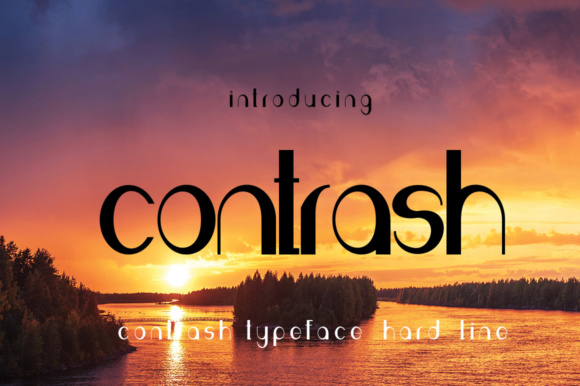
Embark on a typographic journey to the retro era with Contrash, a captivating sans serif font family designed by the talented jehansyah251. This font collection embodies the essence of nostalgia, transporting you back to the golden age of design. With its distinctive letterforms and playful character, Contrash adds an irresistible touch of vintage charm to your creative projects.
Contrash's meticulously crafted glyphs exude a timeless appeal, reminiscent of classic signage, posters, and magazine layouts. Its bold strokes and sharp angles command attention, while its subtle curves and playful details inject a touch of whimsy. Whether you're a seasoned designer or just starting your creative journey, Contrash will effortlessly elevate your work to new heights.
Dive into the Contrash family and discover a world of typographic possibilities. Express your individuality with the Regular weight, perfect for headlines, logos, and branding materials that demand impact. Unleash your creativity with the Light weight, ideal for adding a touch of retro flair to body text, captions, and web designs. And for those seeking a bold statement, the Bold weight is your weapon of choice, commanding attention in posters, flyers, and social media graphics.
With Contrash, you're not just downloading a font; you're acquiring a versatile tool that seamlessly adapts to your creative vision. Its retro charm effortlessly complements vintage-inspired designs, adding a touch of authenticity to your work. Yet, Contrash also possesses a modern sensibility, making it equally suited for contemporary projects. From branding and marketing materials to social media posts and web designs, Contrash effortlessly blends the old and the new, creating a captivating visual experience.
Join the Contrash revolution and unlock a world of creative possibilities. Whether you're a seasoned designer seeking a touch of retro charm or a creative enthusiast yearning for a distinctive typographic voice, Contrash is your perfect companion. Embrace the allure of the past while embracing the possibilities of the present. Download Contrash today and embark on a typographic journey that will leave an unforgettable impression on your audience.